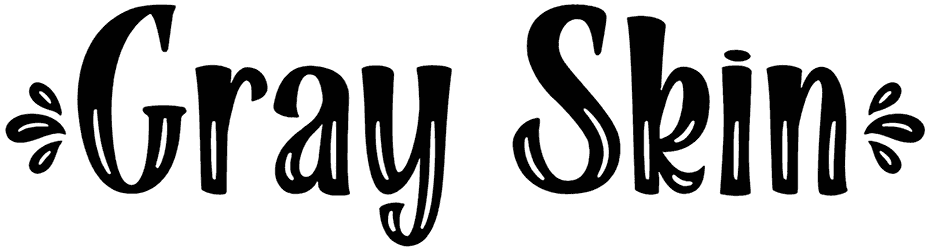
Gray Skin Font
Create a distinct and cheerful layout with this unique fantasy font named Gray Skin. This item has a playful and pretty letter style that can be used for any happy-themed design. Set Gray Skin for your intended projects, such as comics, album covers, flyers, games, or the like, and show off your creativity.
Type ( before word to get beginning Splash and Type ) after word to get the ending Splash.
Example : (Gray Skin)